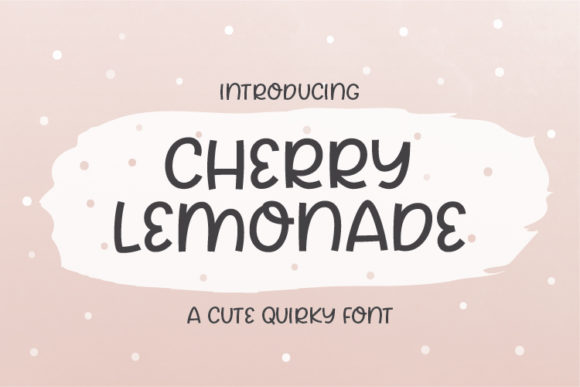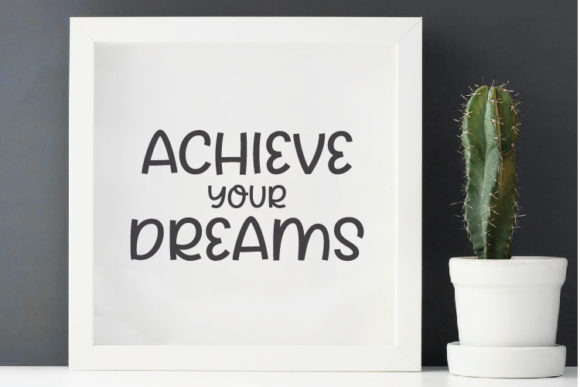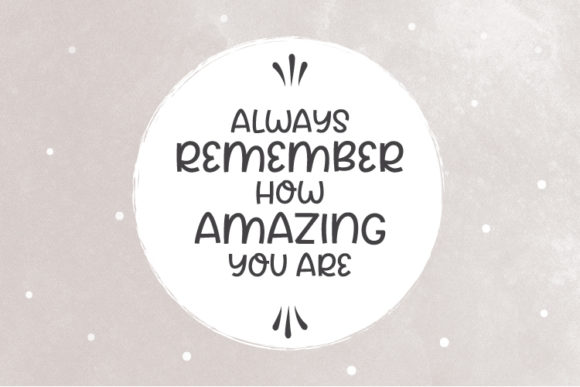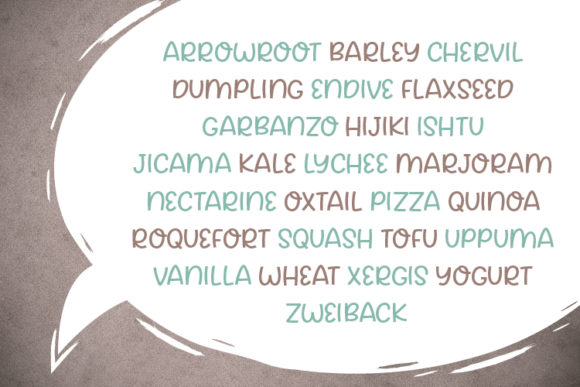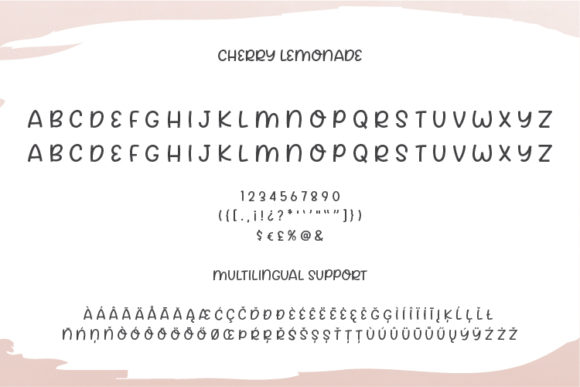
Cherry Lemonade Font
About Cherry Lemonade Font
Cherry Lemonade is a cute and quirky handwritten font. Suitable to a wide variety of designs due to its neat and simple style, Cherry Lemonade has the potential to become your favorite go-to font, no matter the occasion!